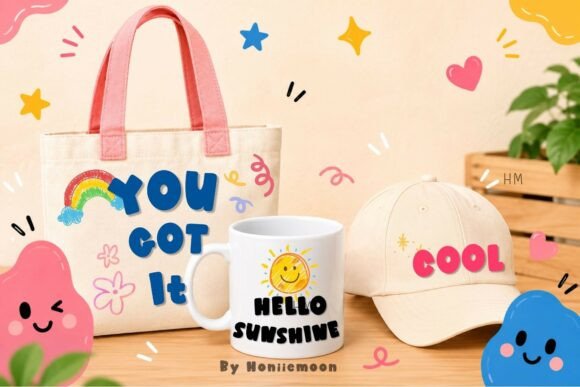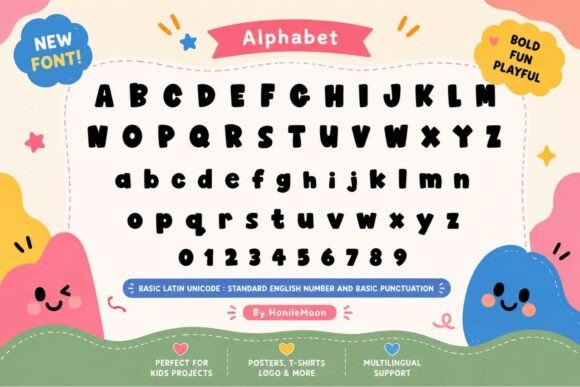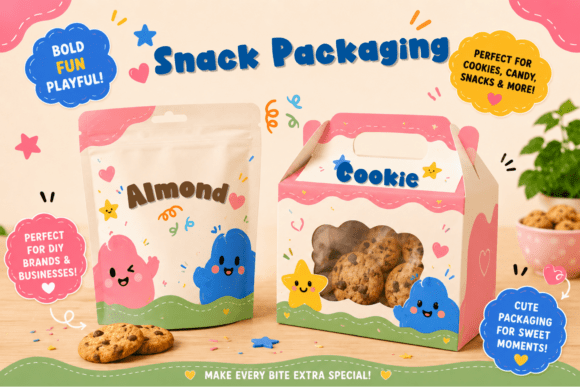
Get Ready to Crack Open Creativity with Almond Font
Do you ever find yourself rummaging through your design stash, searching for the perfect font to match your playful project? You know, that moment when you stumble upon a font that screams “fun” and “creativity” and just makes you want to get designing? For me, that moment happens every time I lay eyes on the Almond Font.
Designed to bring joy and whimsy to your projects, Almond Font is a bold and playful display font that’s perfect for kids’ designs, classroom resources, and more. Its chunky rounded letters and cheerful personality make it a valuable addition to any designer’s toolkit. Whether you’re creating educational materials, birthday party decorations, or trendy POD designs, Almond Font adds a friendly and eye-catching touch that stands out beautifully.
Almond Font Key Features
• Font Family: Almond Font is a sans-serif font family designed for digital use.
• Character Set: Supports a wide range of languages, including Latin, Cyrillic, and Greek scripts.
• Size and Resolution: Designed for on-screen use, with optimized sizes ranging from 12 to 48 points, and resolutions up to 300 DPI.
• Unique Characteristics: Almond Font features a clean, modern design with a unique blend of geometric and organic shapes, making it suitable for a wide range of applications, including digital interfaces, branding, and publishing.
Almond Font Review
Overall, I think the Almond Font is a great choice for those who want a unique and playful font for their design projects. ✨ Its rounded edges and soft curves make it perfect for creating a friendly and approachable atmosphere.
• Works well in headings and titles, adding a touch of whimsy and personality to your designs.
• Good for body text, especially when used in shorter paragraphs or quotes.
• Pair it with clean and modern sans-serif fonts for a nice contrast.
However, I do have some reservations about using the Almond Font in certain situations. ⚠️ Its rounded edges can make it difficult to read in smaller sizes or at a distance. Additionally, it may not be the best choice for formal or professional designs, as it can come across as too playful or childish.
Overall, I think the Almond Font is a great addition to any designer’s toolkit, but it’s essential to use it judiciously and consider the context in which it will be used.
Almond Font: A Practical Application Guide
Getting the Most Out of Almond Font
For optimal results, use Almond Font in conjunction with bold or italic text to add emphasis.
Almond Font is ideal for:
Food and beverage branding
Home decor and furniture design
Alternatives to Almond Font
Open Sans is a modern sans-serif font that is highly legible and versatile. It is suitable for a wide range of applications, from body text to headings. Open Sans is a great alternative to Almond Font when you need a clean and minimalist look.
Comparison: Open Sans is more geometric and modern compared to Almond Font, which has a more rounded and elegant feel. Open Sans is also more versatile and can be used in a variety of contexts, while Almond Font is more suited for high-end or luxury brands.
Lato is a sans-serif font that is highly legible and elegant. It has a unique blend of geometric and humanist elements, making it suitable for a wide range of applications. Lato is a great alternative to Almond Font when you need a font that is both modern and sophisticated.
Comparison: Lato is more elegant and sophisticated compared to Almond Font, which has a more playful and whimsical feel. Lato is also more versatile and can be used in a variety of contexts, while Almond Font is more suited for brands that want to convey a sense of luxury and elegance.
Montserrat is a sans-serif font that is highly legible and urban. It is inspired by the street signs of the Montserrat neighborhood in Buenos Aires, Argentina. Montserrat is a great alternative to Almond Font when you need a font that is both modern and gritty.
Is the Almond Font optimized for digital use?
Yes, the Almond Font is optimized for digital use, with careful attention paid to hinting and kerning. This ensures that the font displays clearly and smoothly on screens, even at small font sizes. The font also includes advanced features like ligatures and contextual alternates, which enhance its readability and aesthetic appeal.